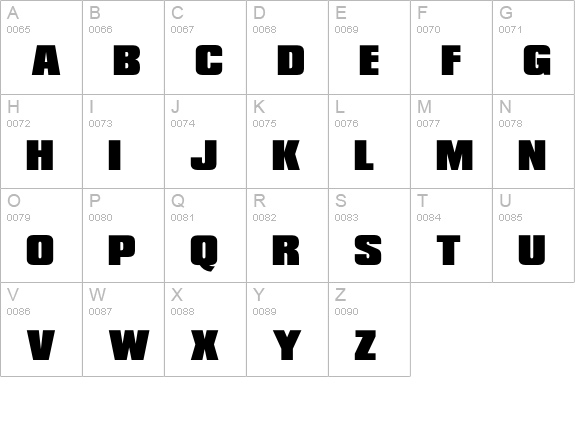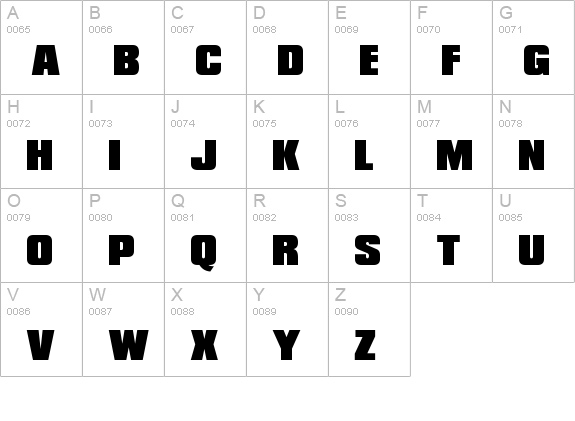
CompactaICG-Black Font Details
CompactaICG-Black is a maximum-weight, dramatic variant in the CompactaICG typeface family \xE2\x80\x94 well suited to maximum-impact headlines, posters, and packaging.
CompactaICG-Black is a bold and impactful font that exudes a sense of strength and authority. Its clean lines and geometric shapes make it a versatile choice for a wide range of design projects, from logos to headlines to signage. The compact design of this font ensures that it makes a bold statement while still remaining easily readable. And the best part? CompactaICG-Black is available for free download at FontsMarket.com. Whether you're a designer looking to add a powerful touch to your creations or someone in need of a strong and modern font for your project, CompactaICG-Black is the perfect choice. Download it today and see the impact it can make on your designs!